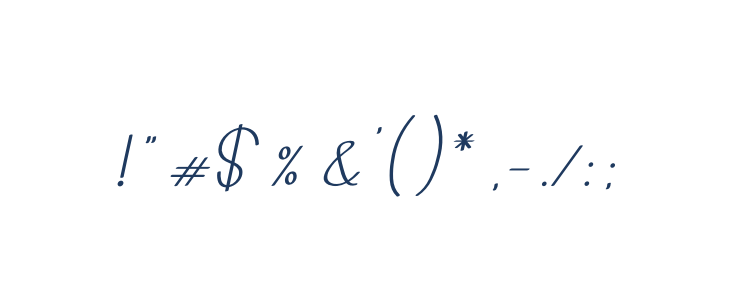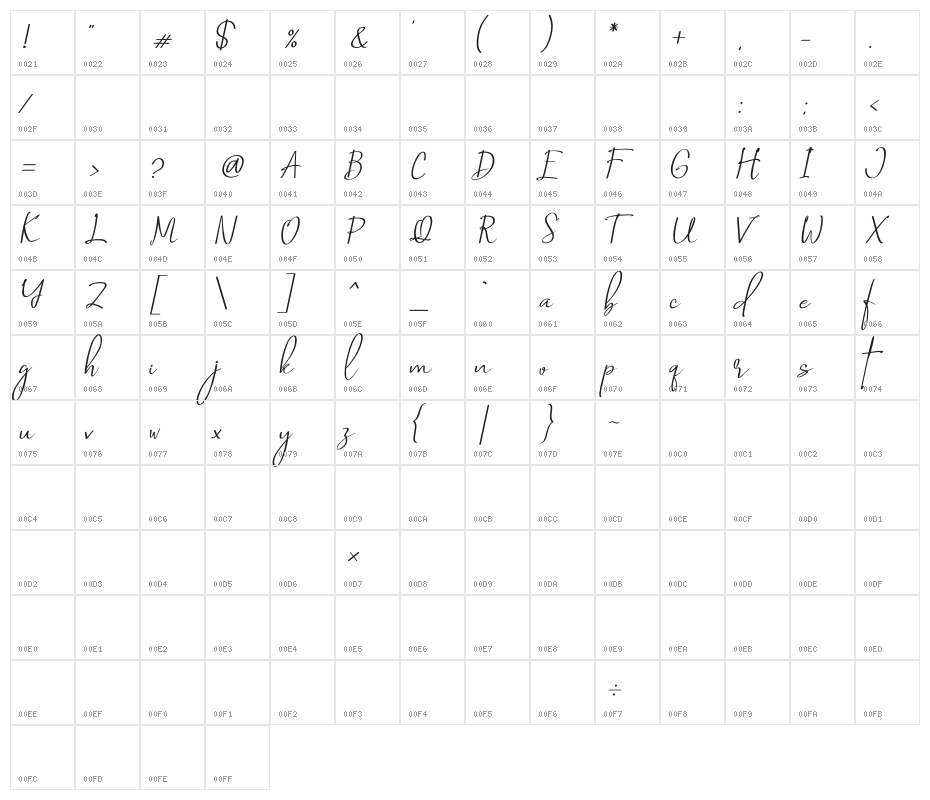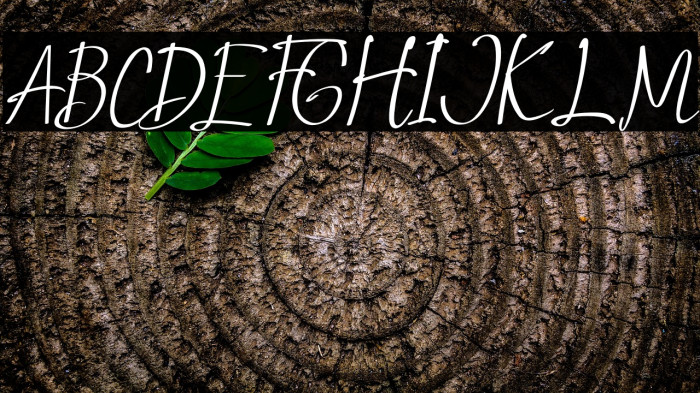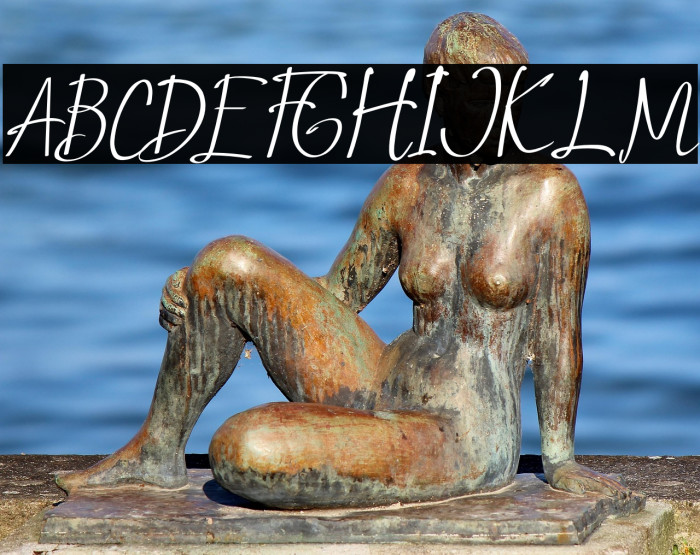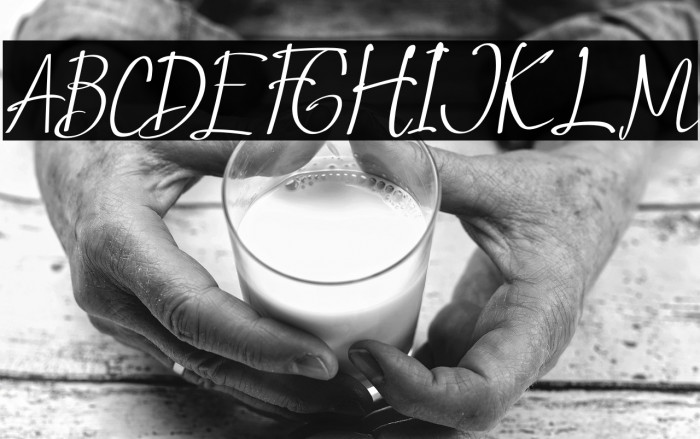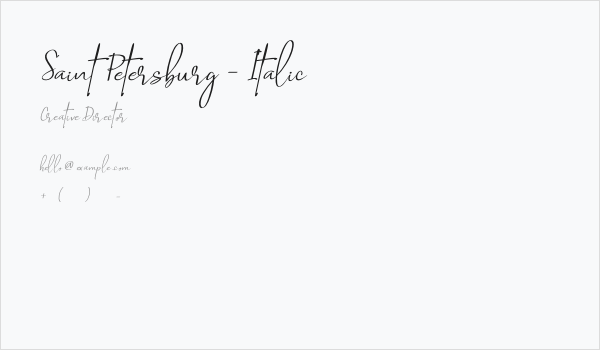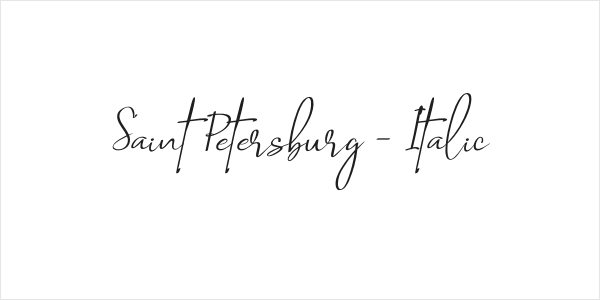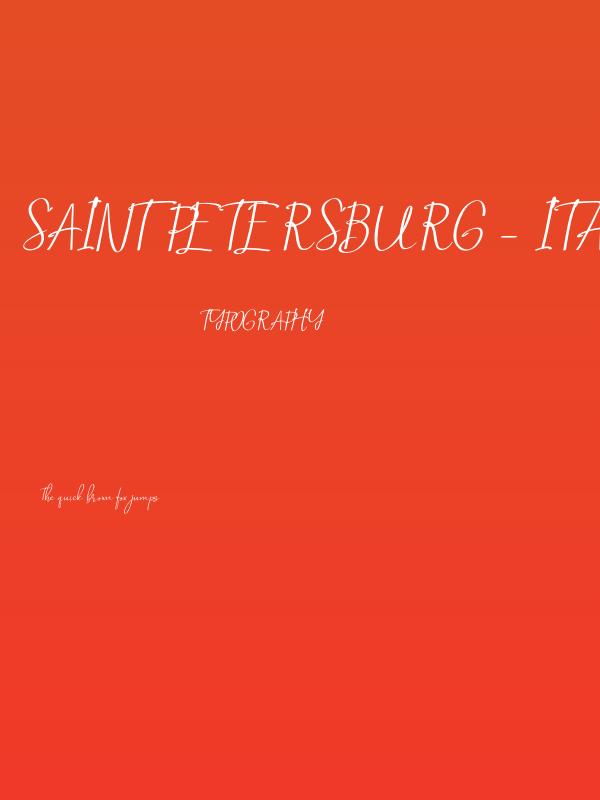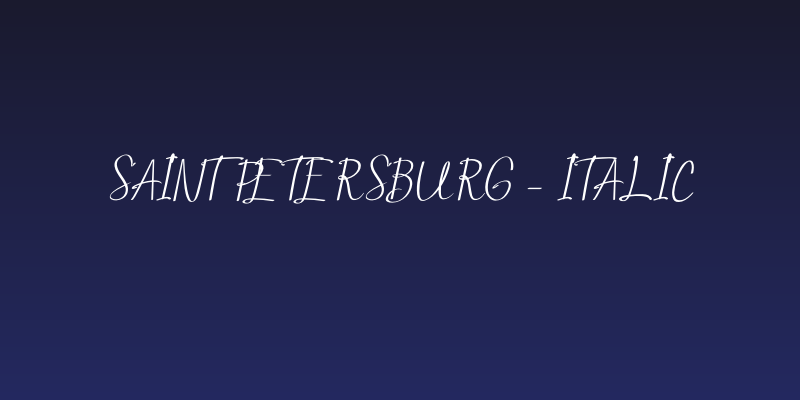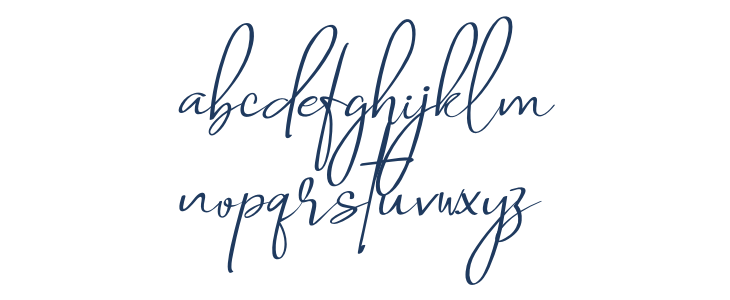
Saint Petersburg - Italic Font
Saint Petersburg - Italic Description
This font exudes elegance and sophistication with its flowing, cursive style. The characters are delicately crafted with a consistent slant, giving it an italic appearance. The strokes are smooth and fluid, creating a sense of movement and grace. The uppercase letters are beautifully looped and connected, while the lowercase letters maintain a harmonious flow. The numerals and special characters are designed to complement the overall script style, adding to its versatility. This font is perfect for projects that require a touch of class and refinement.
| Overall Style | Elegant, Sophisticated |
| Proposed Projects | Ideal for wedding invitations, elegant branding, personal stationery, and high-end product packaging. |